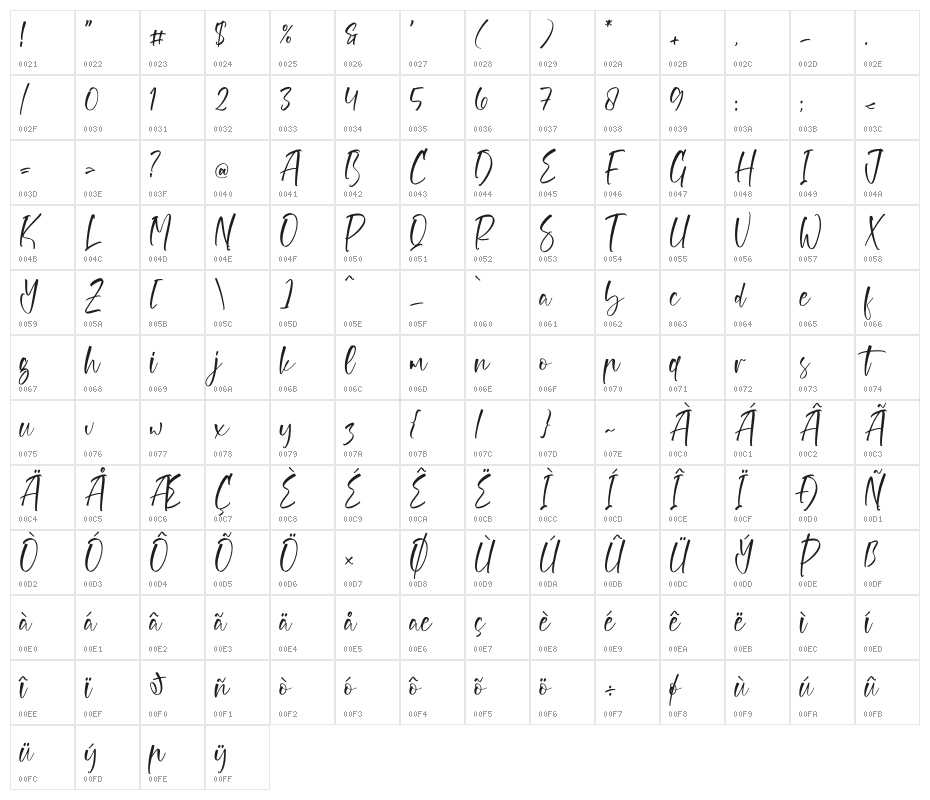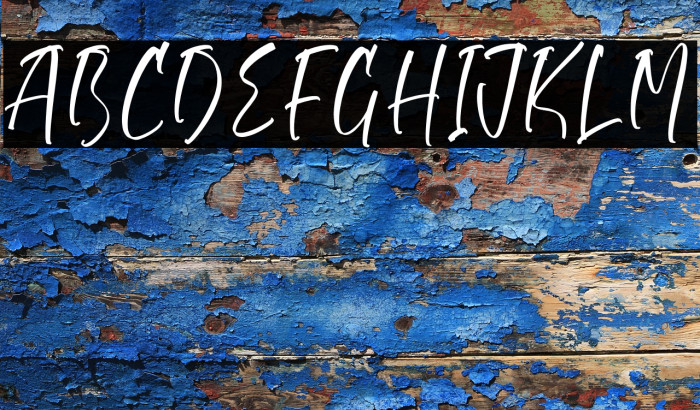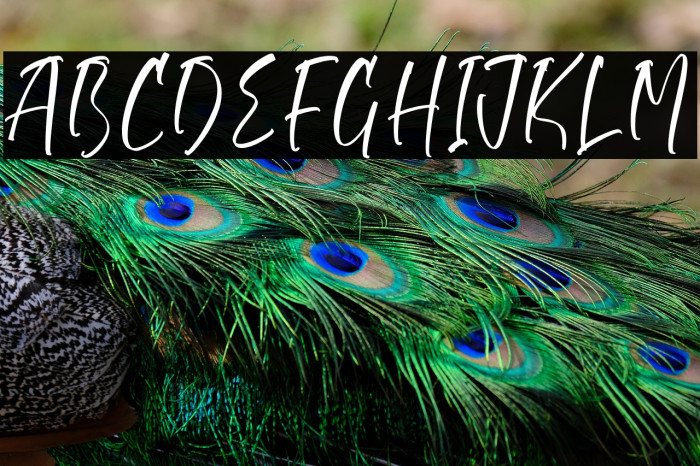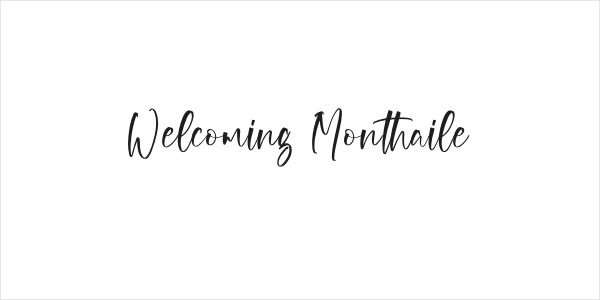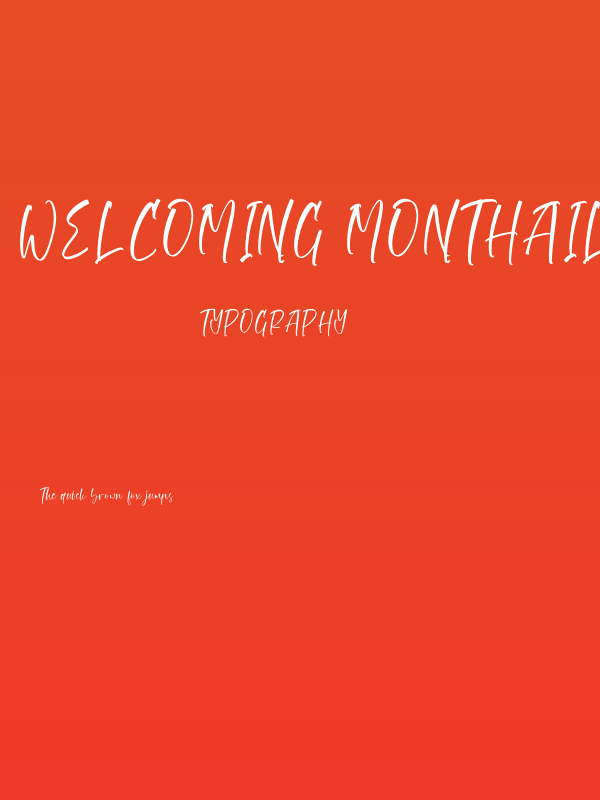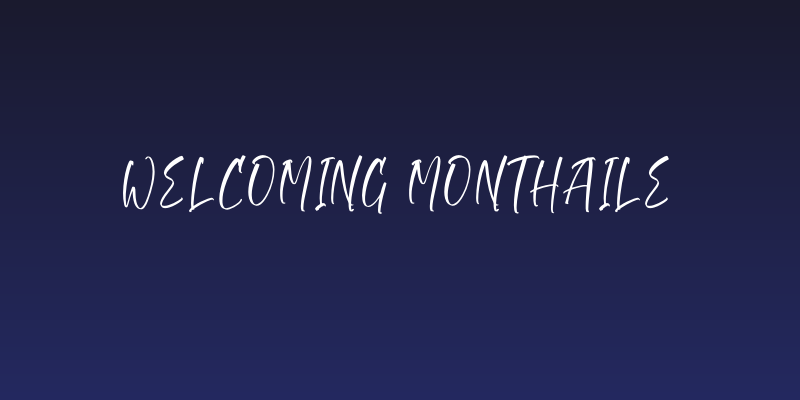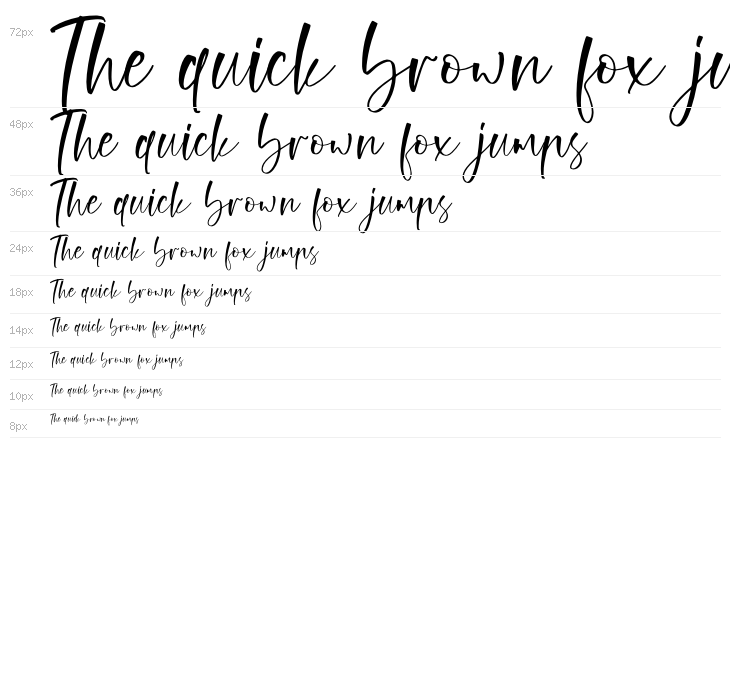
Welcoming Monthaile Font
Welcoming Monthaile Description
A lively, casual handwritten script with fluid, slightly irregular strokes and a natural, brush-pen appearance. The characters are connected in a loose, informal manner, with varying stroke thickness and playful loops, giving it a personal and expressive feel.
| Overall Style | Decorative, Casual, Modern |
| Use Case | Logos, Headlines, Invitations, Social media posts |
| Proposed Projects | Greeting cards, invitations, branding, social media graphics, quotes, posters. |